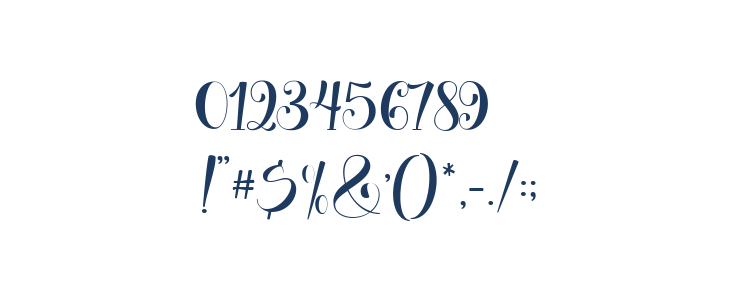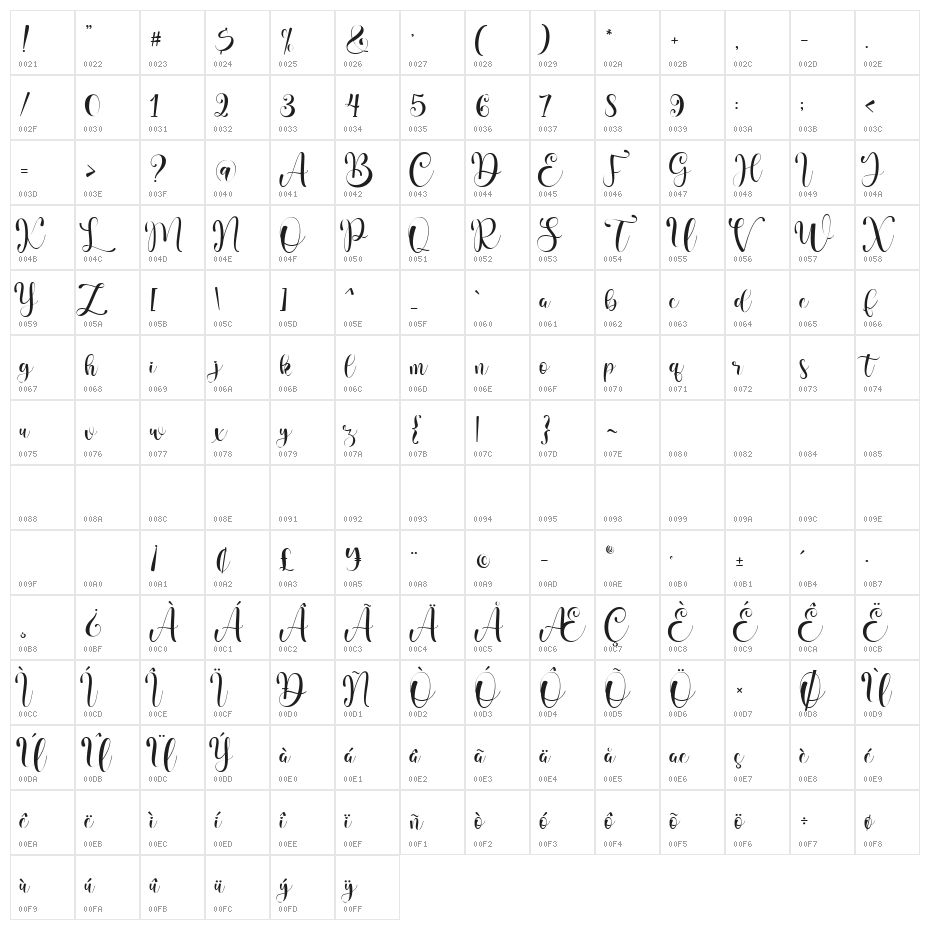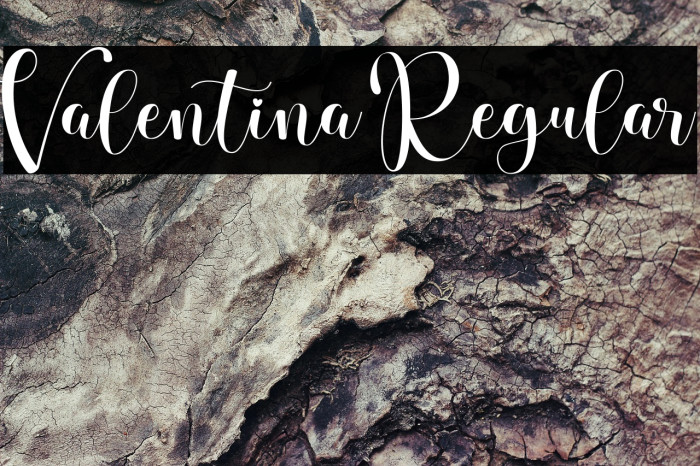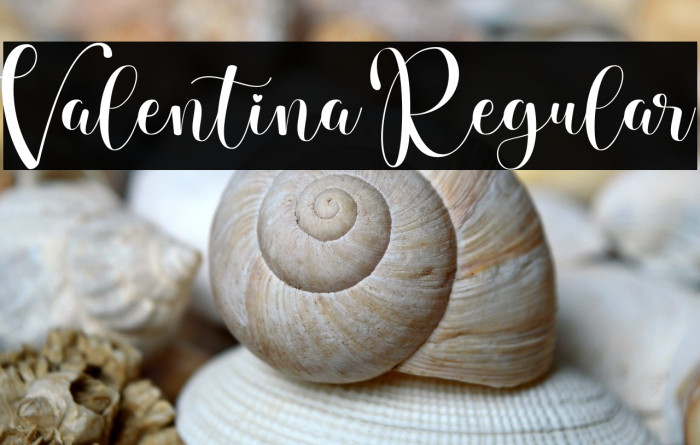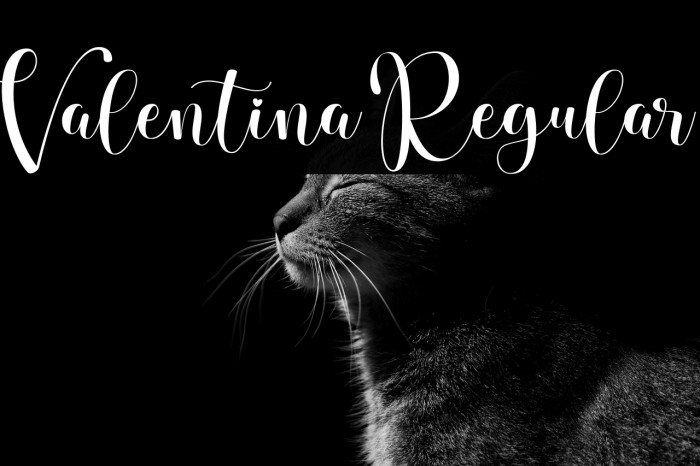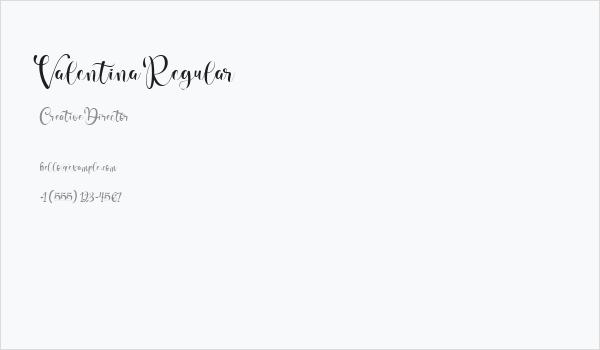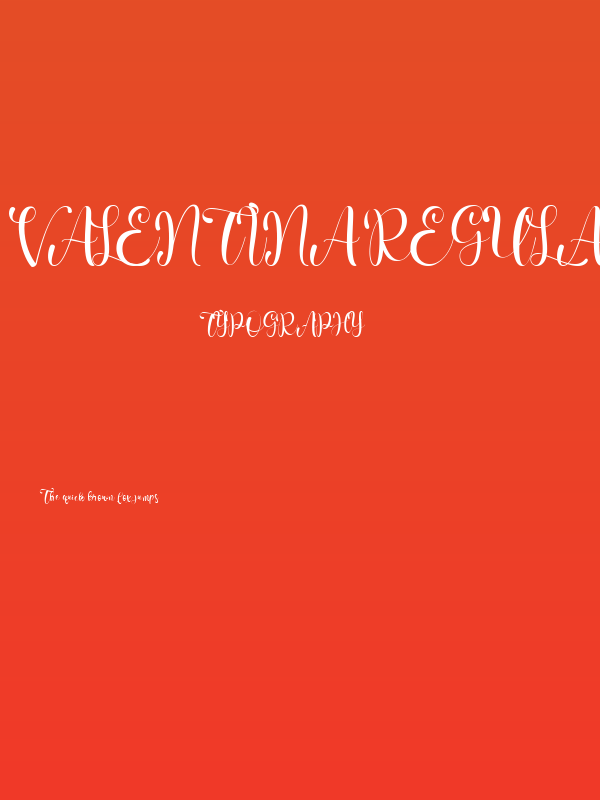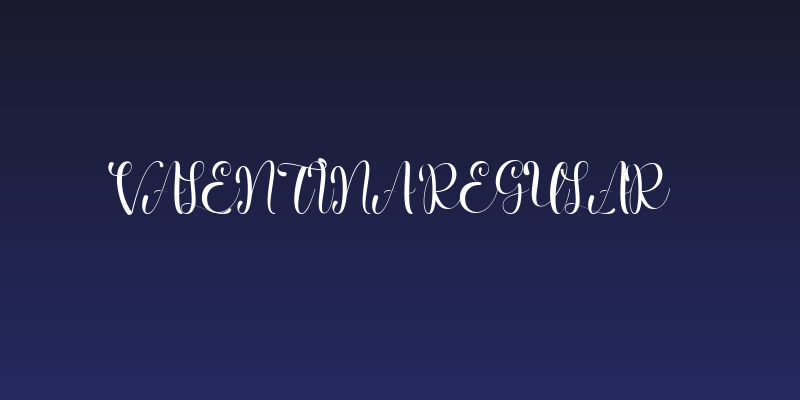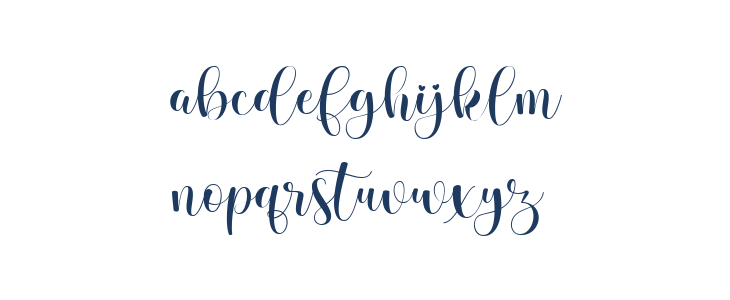
Valentina Regular Font
Valentina Regular Description
This font features an elegant and flowing script style, characterized by its intricate swirls and loops that give it a sophisticated and artistic appearance. The uppercase letters are particularly ornate, with flourishes that extend beyond the baseline and cap height, creating a sense of movement and grace. The lowercase letters maintain a consistent style, with smooth curves and a slightly condensed form that enhances readability. The numerals are designed to match the overall aesthetic, with a balanced mix of curves and straight lines. Special characters are thoughtfully integrated, maintaining the font's cohesive look. This font is ideal for projects that require a touch of elegance and creativity, such as wedding invitations, branding, and decorative headings.